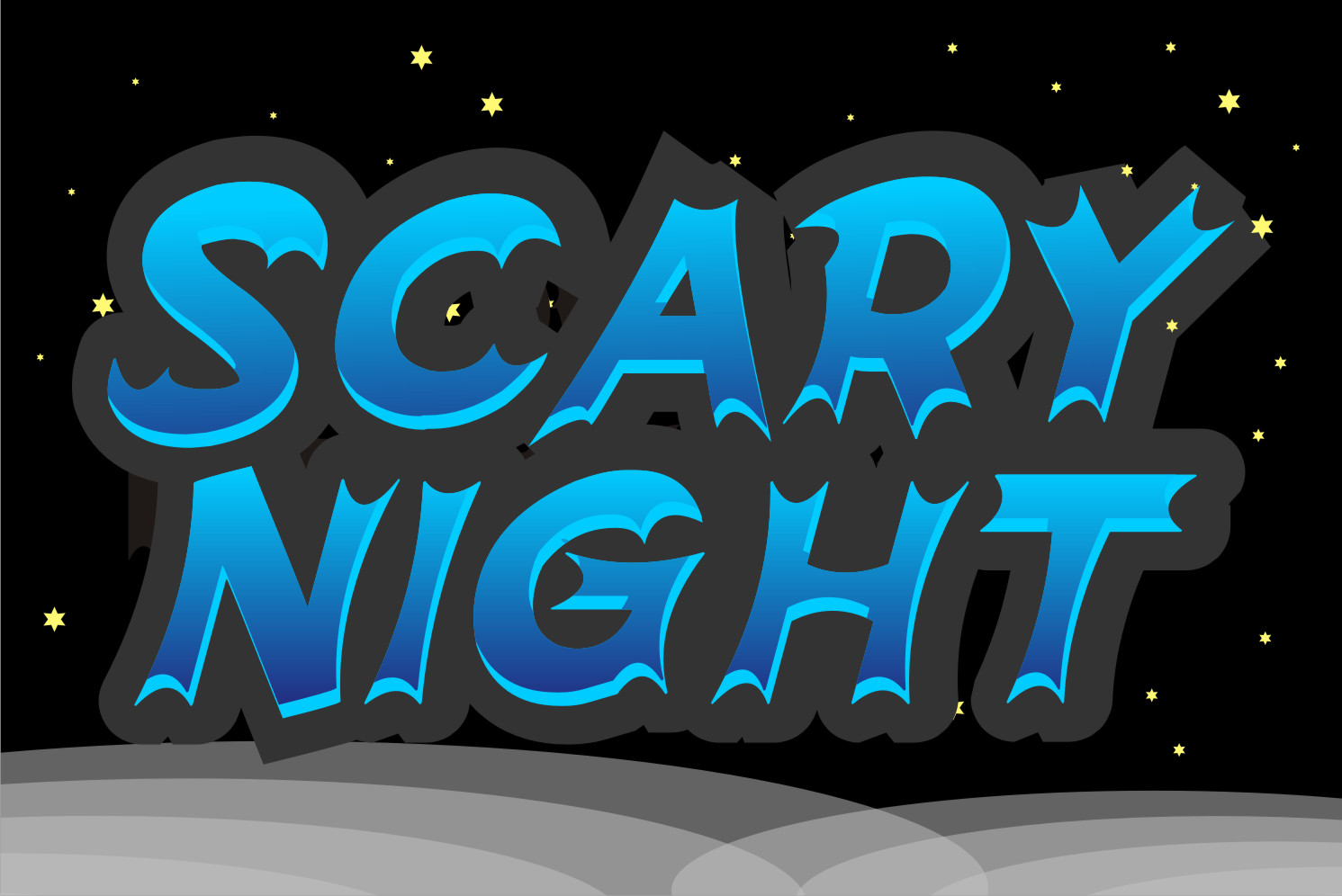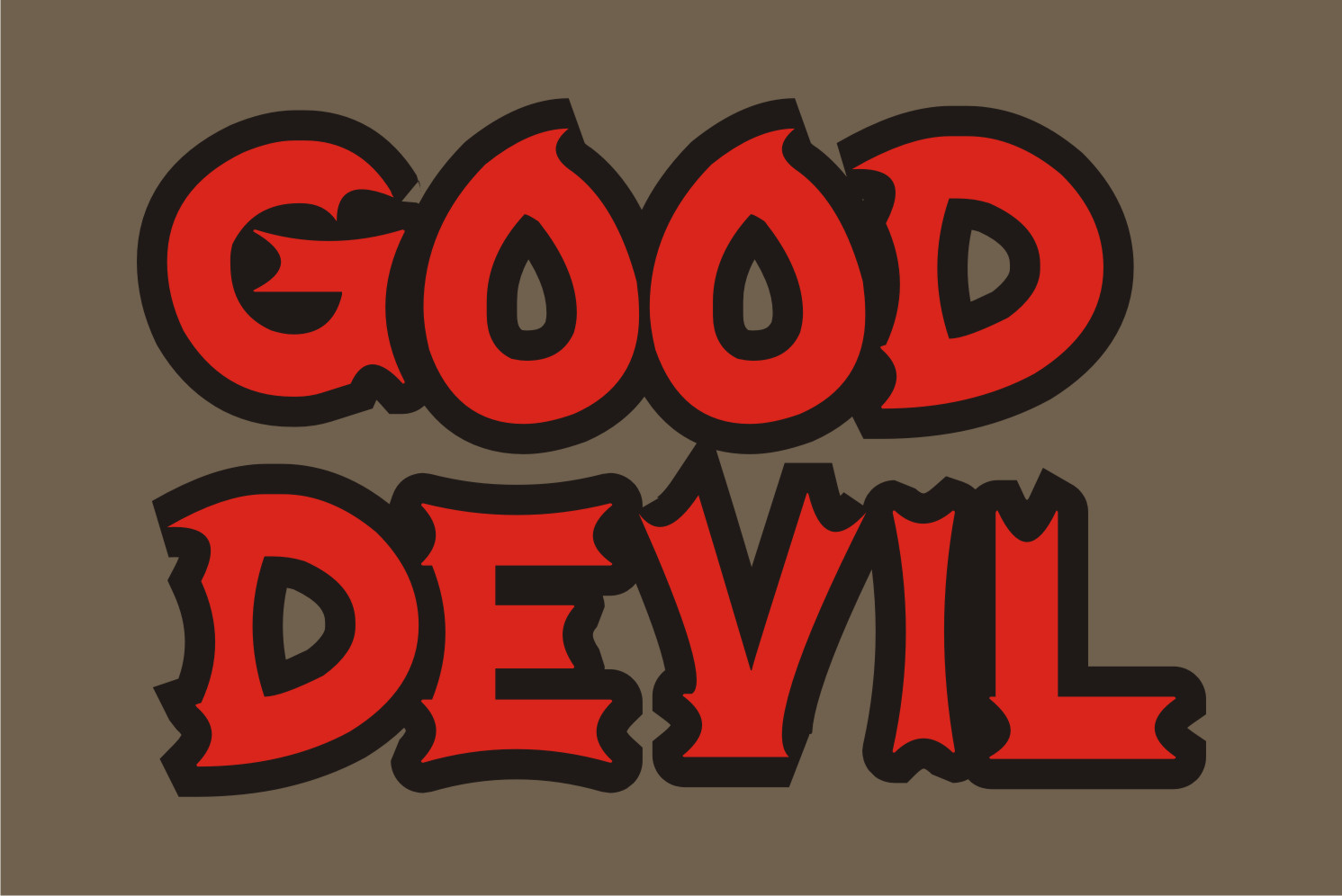
Devil Helloween Font
Devil Helloween Display Font
This is a thick-lettered and spooky display font. It is perfectly suitable for any Halloween-related project or crafty idea! The only limit is your imagination.